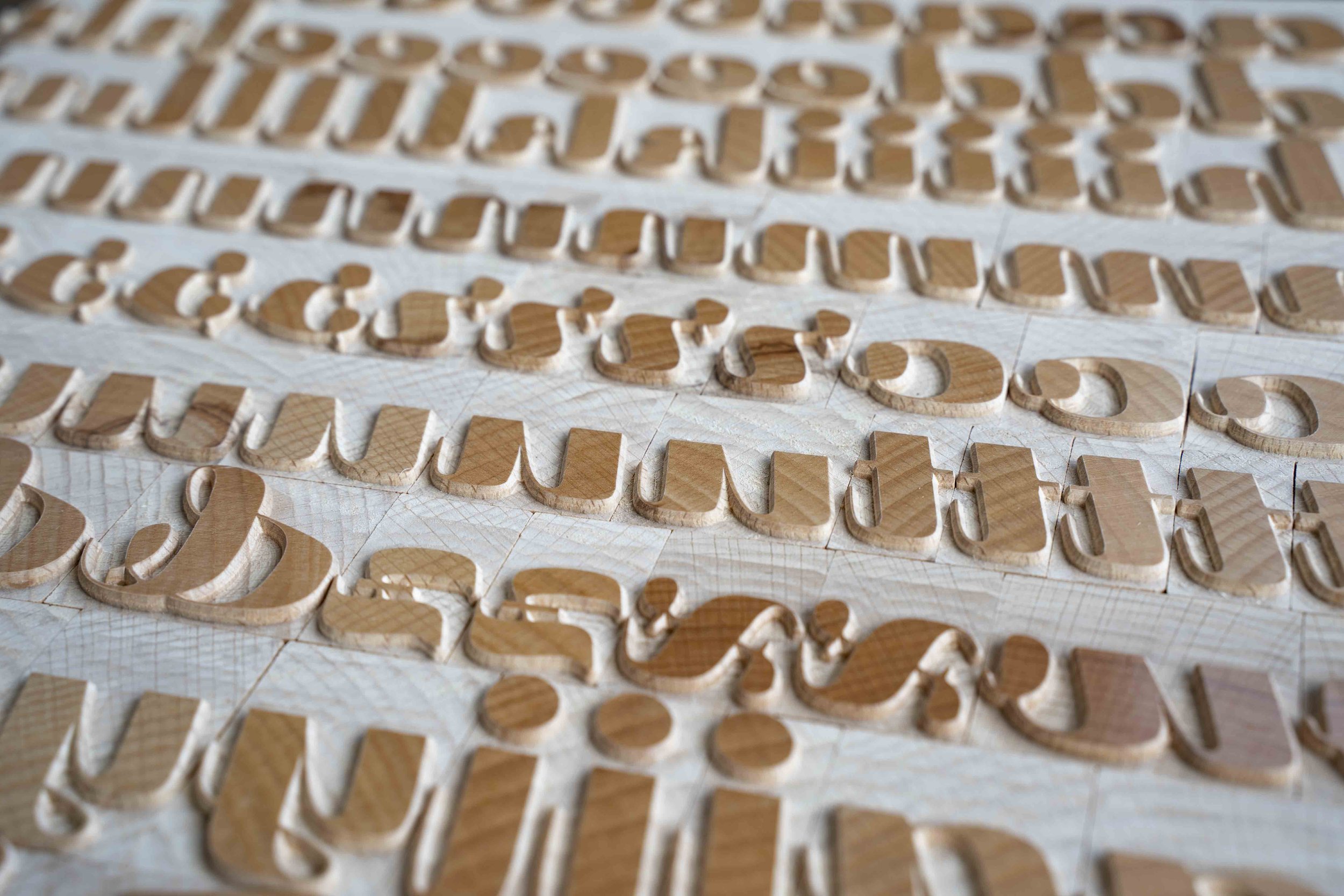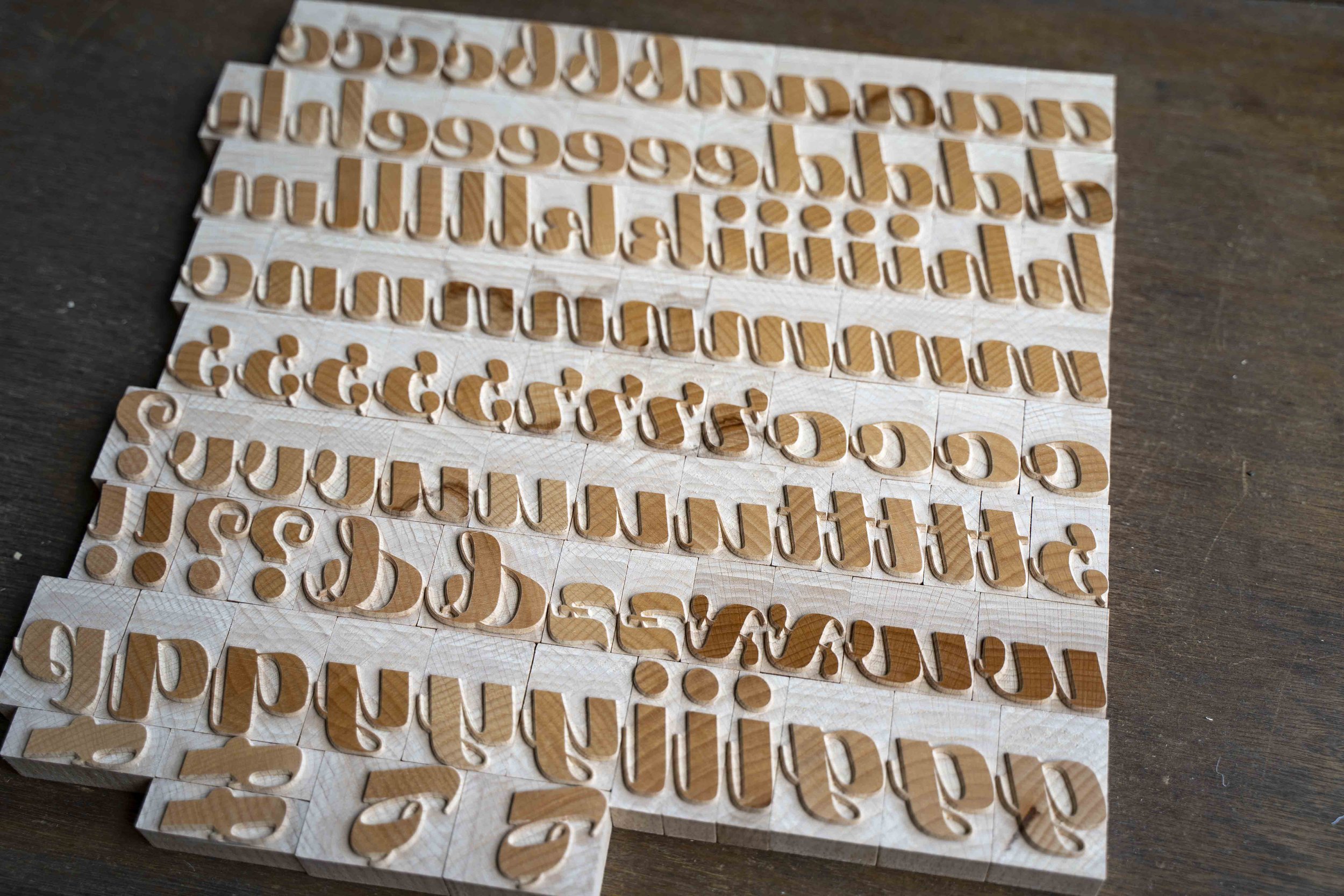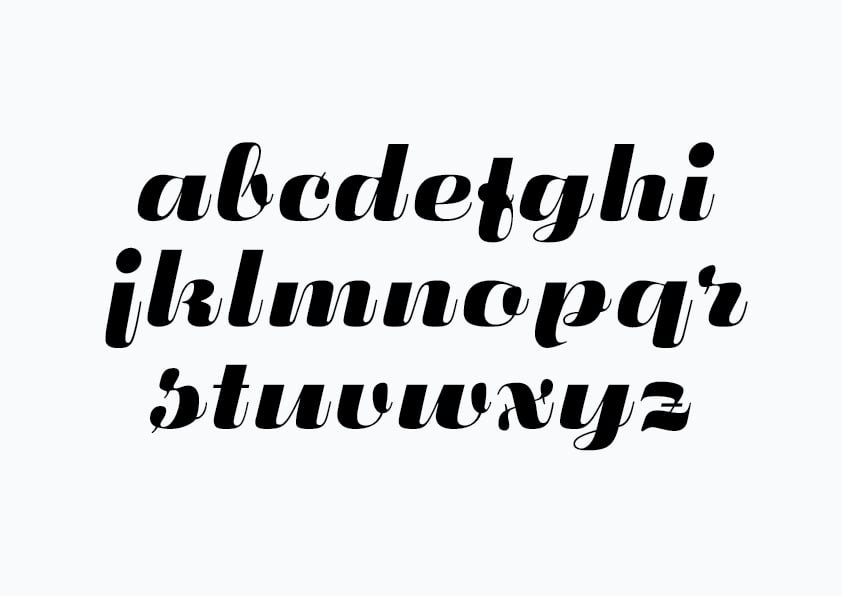
Fluidum
Originally designed by in the 1930s by Alessandro Butti, Fluidum is now available to purchase as wood type in 10 line! We adjusted our machining process specially for this face to offer greater support for its fine details. Ideal for artistic letterpress prints.
Printed sample by Amanda Tomlin.
End grain beech hardwood finely sanded to type height. Each block is finished with shellac and polished with fine steel wool for a smooth print surface.